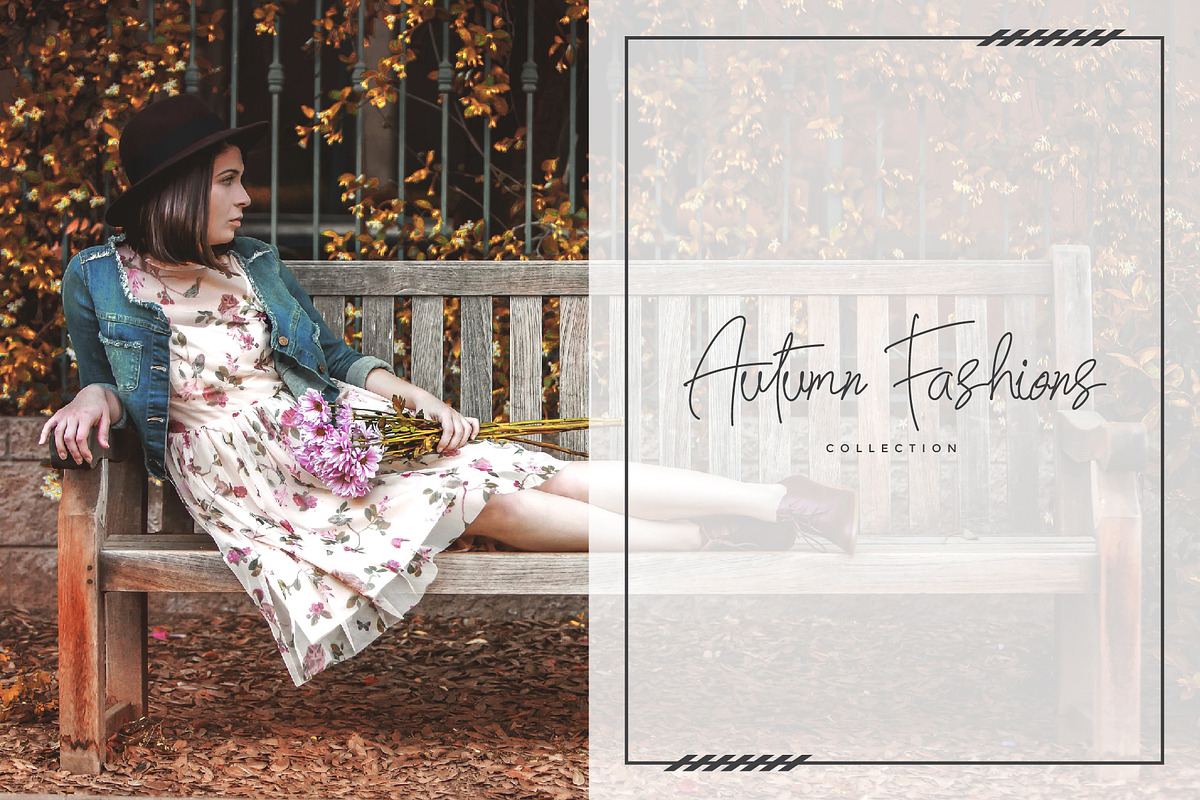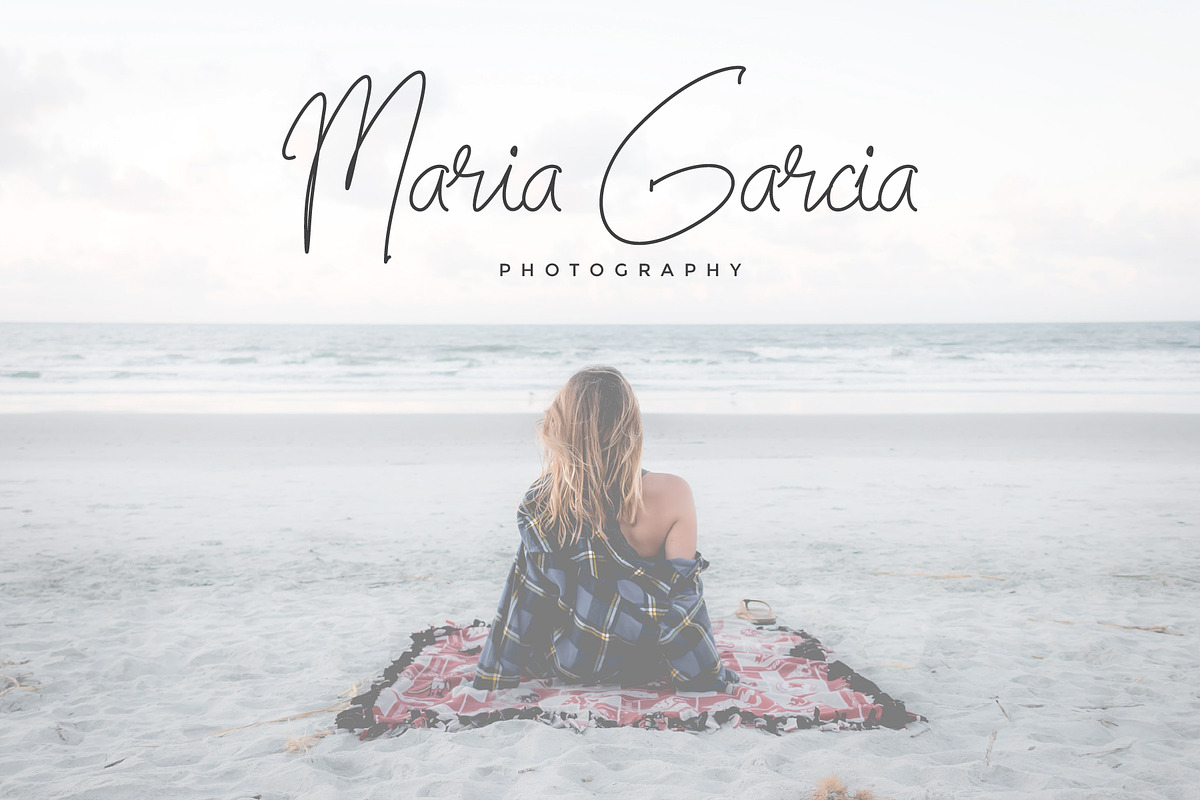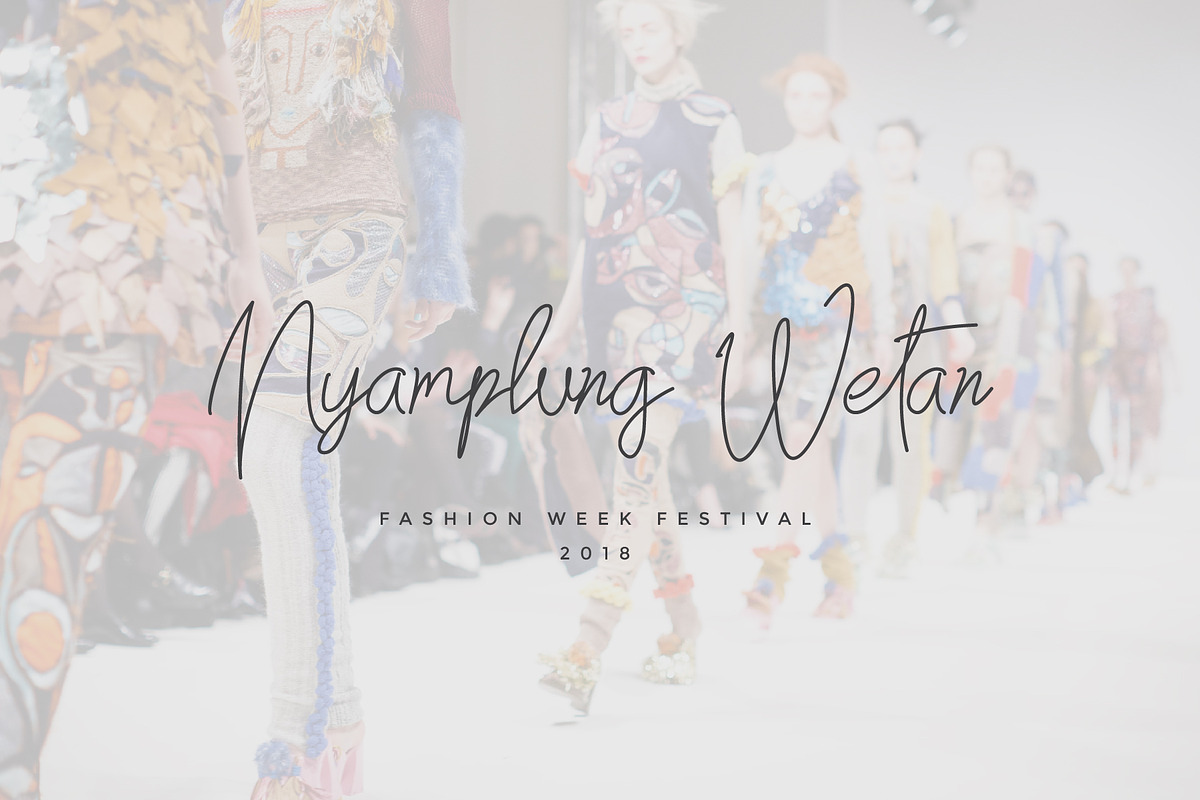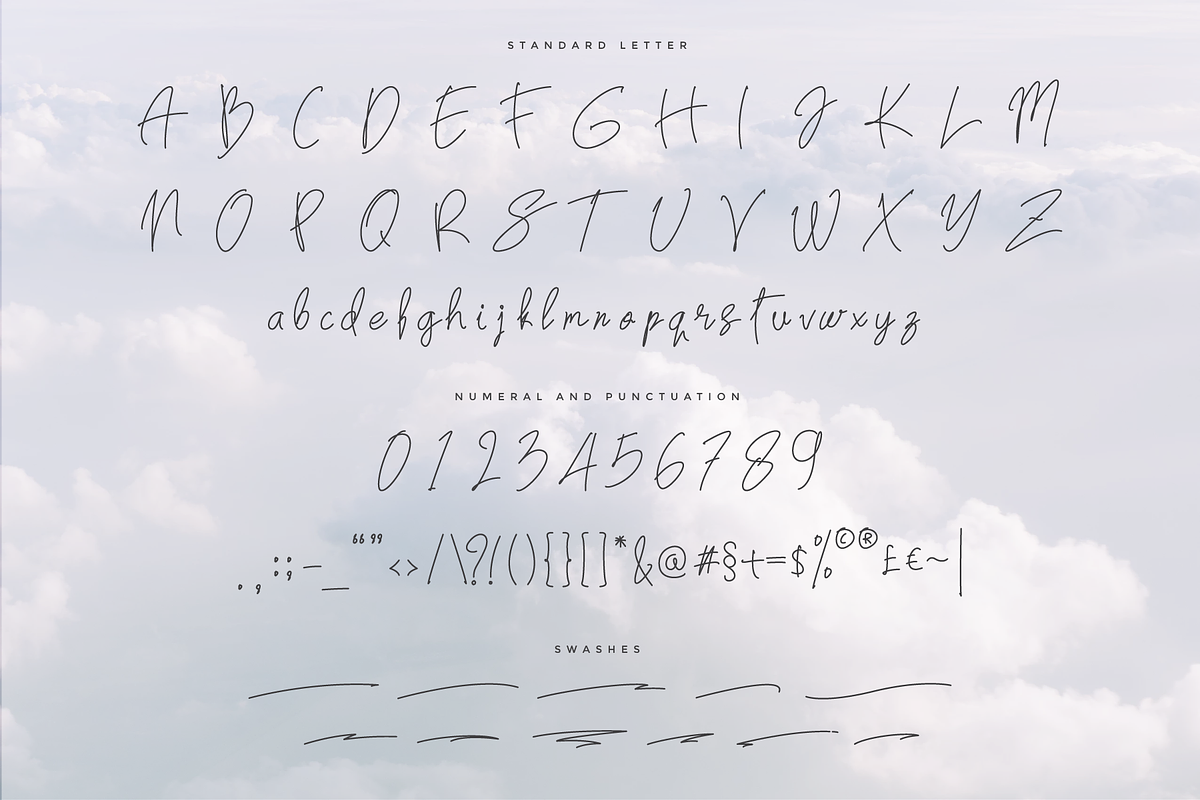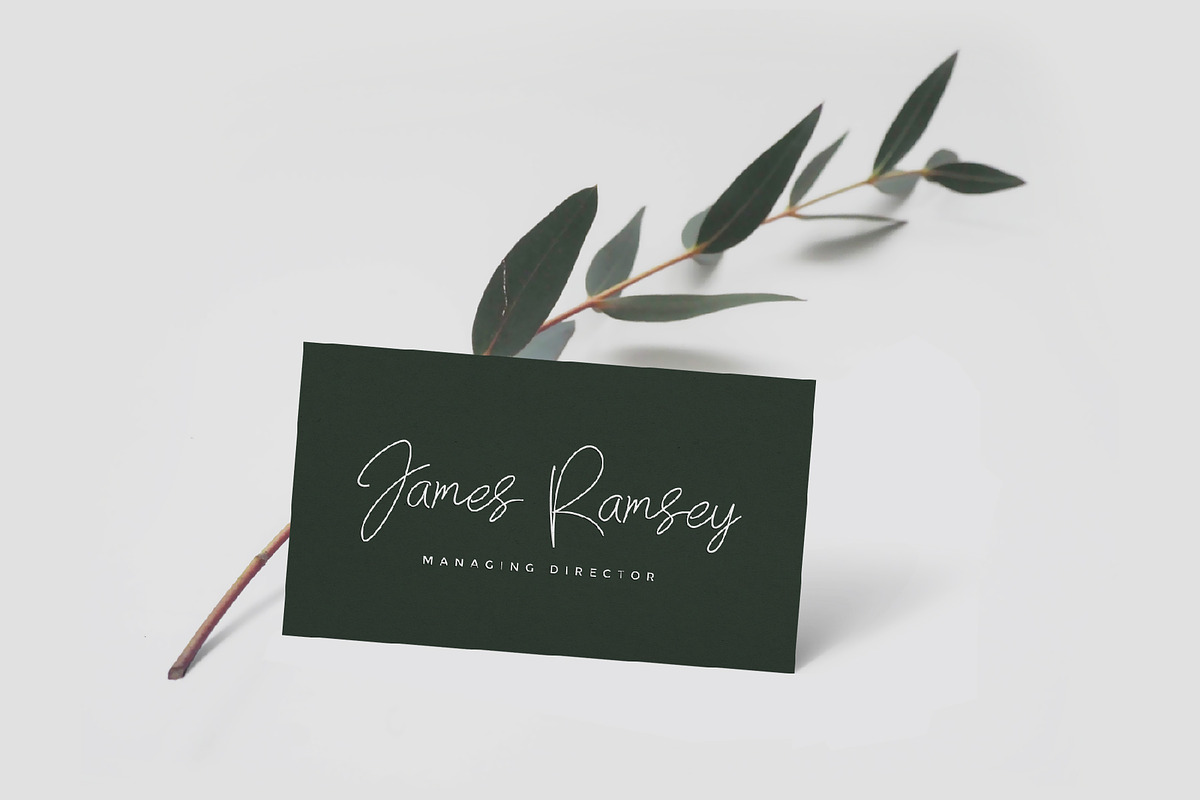
Brecelets Signature Font
Hi! introduce Brecelets Signature Font It's allowing you to create beautiful hand-made typography in an instant. a typeface to look as close like natural handwritten, calligraphy, modern script.
Brecelets Signature Font is suit to use for any kind of design such as branding projects, logo, wedding designs, social media posts, advertisements, product packaging, product designs, label, photography, watermark, invitation, poster, t-shirt design, stationery and any projects that need handwriting taste.
Brecelets Signature Font also includes full set of uppercase and lowercase letters, numerals, punctuation, swashes. It would be perfect for all types of printing techniques, you can do embroidery, laser cut, gold foil, etc.
Brecelets Signature Font by MuSan fits naturally into Branding, posters, packaging, typography.